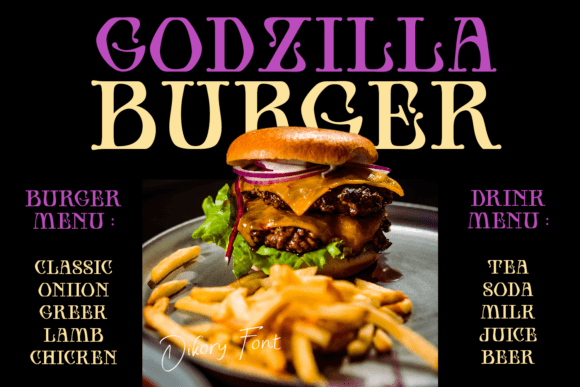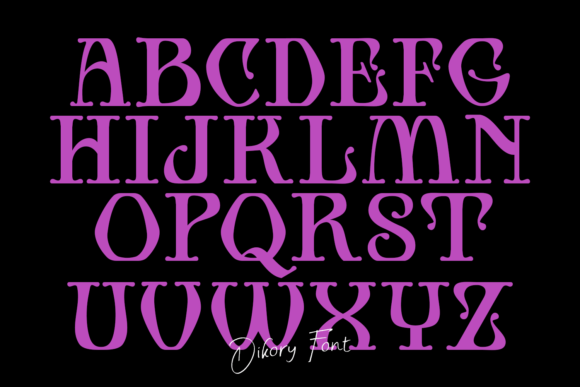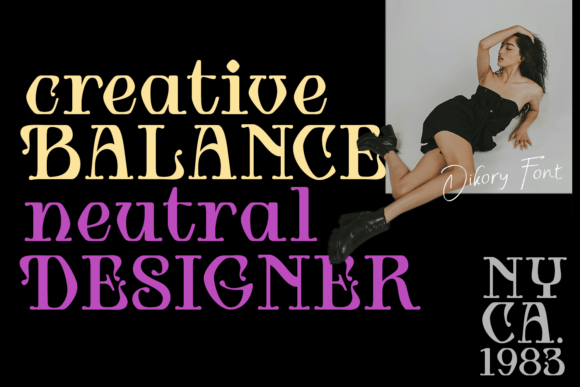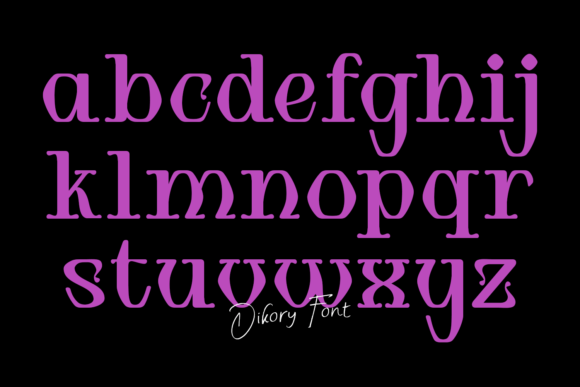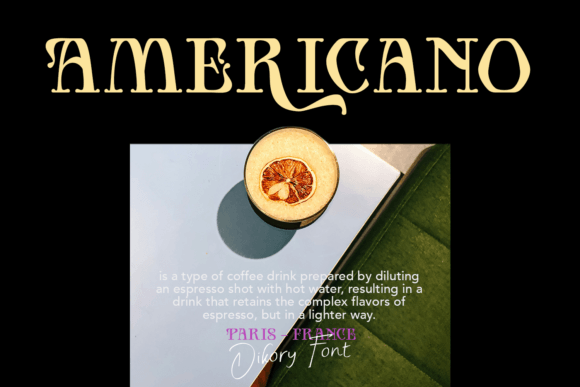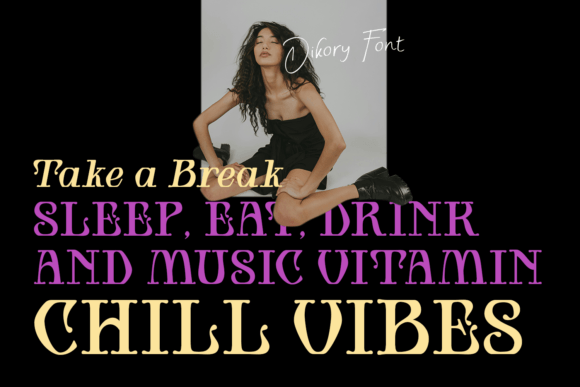
Dikory Font: Elevate Your Designs with a Timeless Classic
In the realm of typography, few fonts manage to strike a balance between classic elegance and modern expressiveness. Dikory Font, however, achieves this feat with remarkable finesse. As a single-weight, display serif font, Dikory brings to the table a unique blend of legibility and stylistic flair, making it an indispensable asset for designers and crafters looking to infuse their projects with a touch of sophistication.
The Essence of Dikory Font
Dikory is characterized by its classic display serif design, which exudes a sense of tradition and reliability. Yet, it’s not just about looking back; Dikory’s design is imbued with a modern sensibility that ensures it remains highly legible across various applications. Whether it’s used in headlines, titles, or short paragraphs, Dikory’s clear and expressive shapes make it easy to read and visually appealing.
A Wealth of Stylistic Options: Alternates and Ligatures
One of Dikory’s standout features is its extensive collection of stylish alternate characters and ligatures. These typographic elements allow designers to add a layer of personality and uniqueness to their work, making each project stand out. The alternates provide subtle variations in letterforms, enabling a high degree of customization without sacrificing the font’s cohesive look. Meanwhile, the ligatures offer creative ways to connect letters, adding a fluid, dynamic quality to the text.
This versatility makes Dikory suitable for a wide range of design projects, from luxury branding and advertising to packaging and editorial design. Whether you’re crafting a sophisticated corporate identity or a playful, artistic statement, Dikory’s range of stylistic options gives you the tools to express your vision with precision.
Practical Applications of Dikory Font
Given its attributes, Dikory Font finds applications in various design scenarios:
• Branding and Logo Design: Dikory’s classic yet distinctive appearance makes it an excellent choice for logos and brand identities that aim to convey tradition, quality, and elegance.
• Advertising and Marketing Materials: The font’s expressiveness and legibility ensure that Dikory can be used effectively in advertisements, flyers, and digital campaigns to grab attention and communicate messages clearly.
• Packaging Design: For product packaging, Dikory’s stylish and highly customizable nature allows it to stand out on shelves and enhance brand recognition.
• Editorial and Magazine Design: Dikory brings a touch of sophistication to editorial projects, making it ideal for headings, pull quotes, and other highlighted text elements.
Why Choose Dikory Font?
Choosing Dikory Font for your design projects comes with several advantages:
• Timeless Appeal: Dikory’s classic design ensures it remains relevant and aesthetically pleasing over time.
• Versatility: The font’s range of alternates and ligatures, along with its legibility, makes it adaptable to various design needs.
• Expressiveness: Dikory’s shapes are not only clear but also imbued with a certain expressiveness that can enhance the emotional impact of your designs.
Dikory Font represents a valuable addition to any designer’s toolkit. Its blend of classic serifs, modern legibility, and extensive stylistic options positions it as a go-to choice for projects requiring a sophisticated yet expressive typographic solution. Whether you’re working on a branding campaign, designing a magazine, or crafting unique packaging, Dikory offers the versatility and aesthetic appeal to elevate your designs. Explore the possibilities with Dikory Font and discover how it can bring a new level of elegance and sophistication to your work.